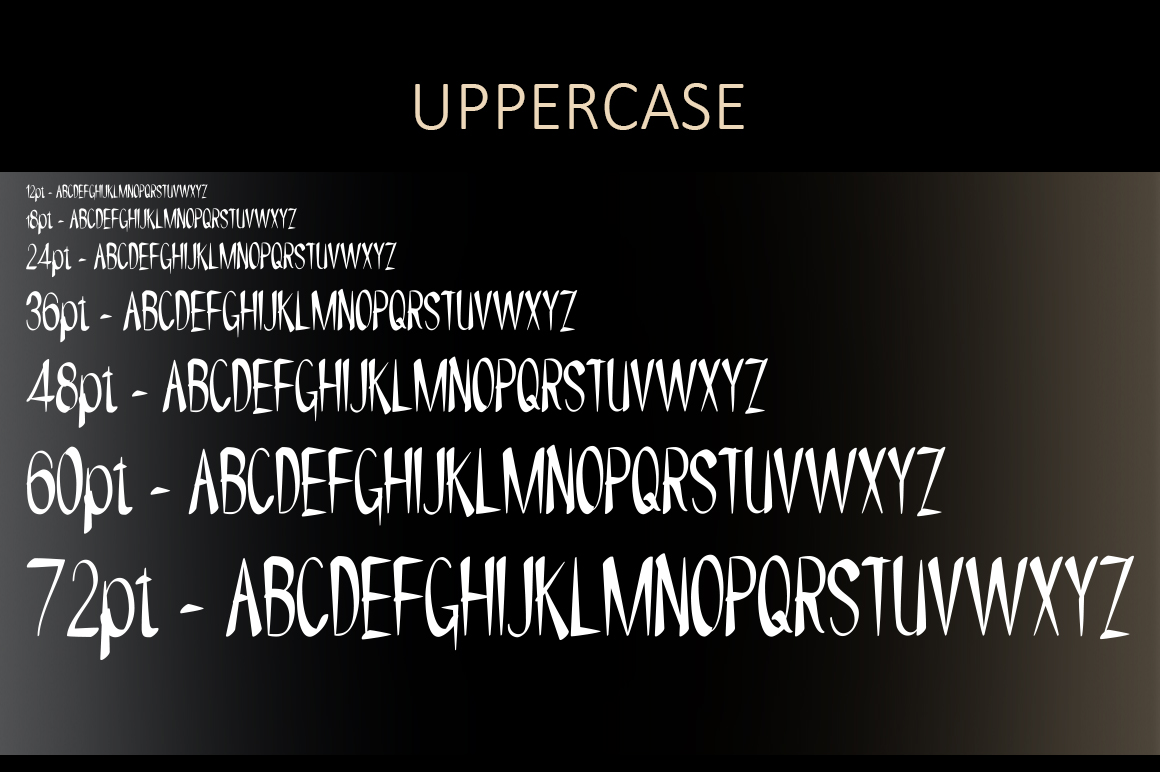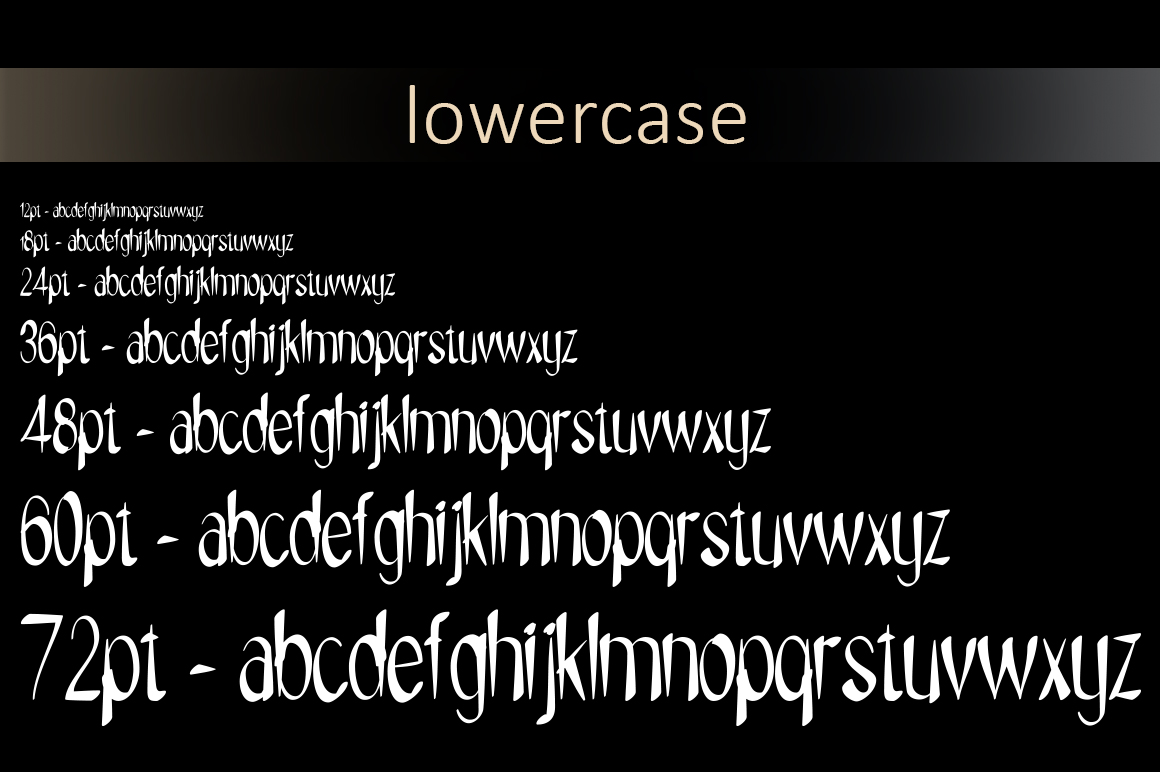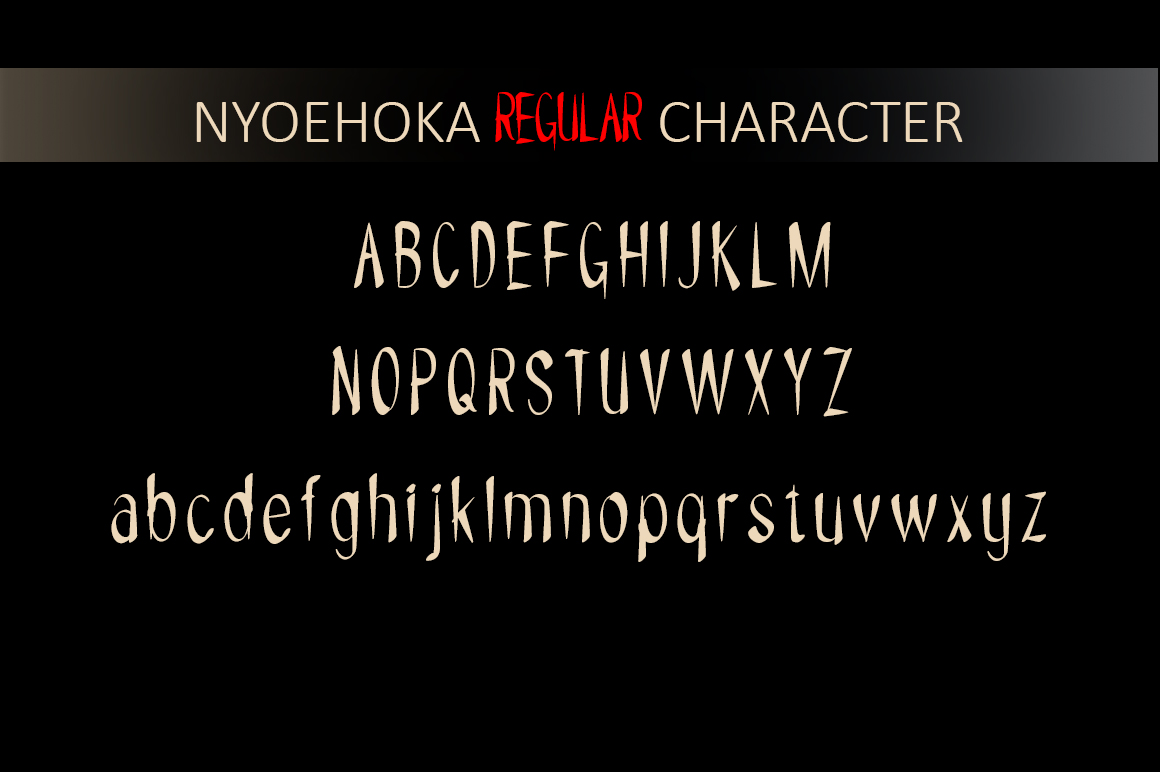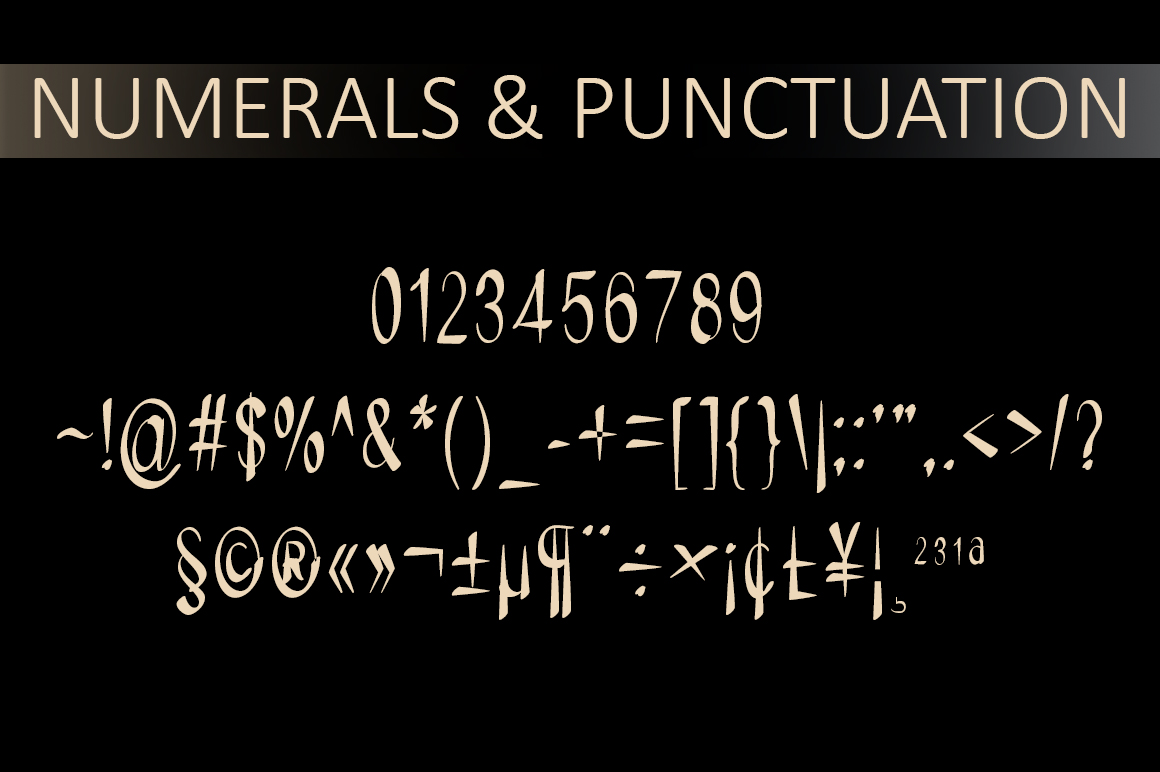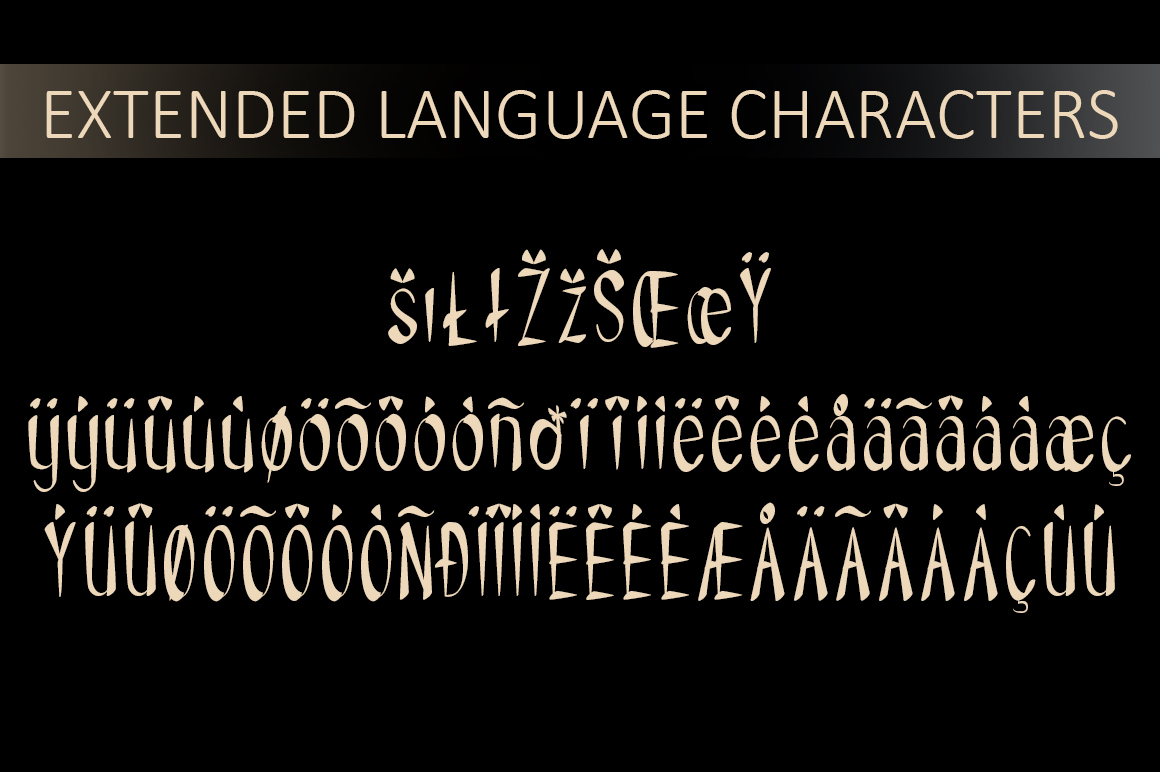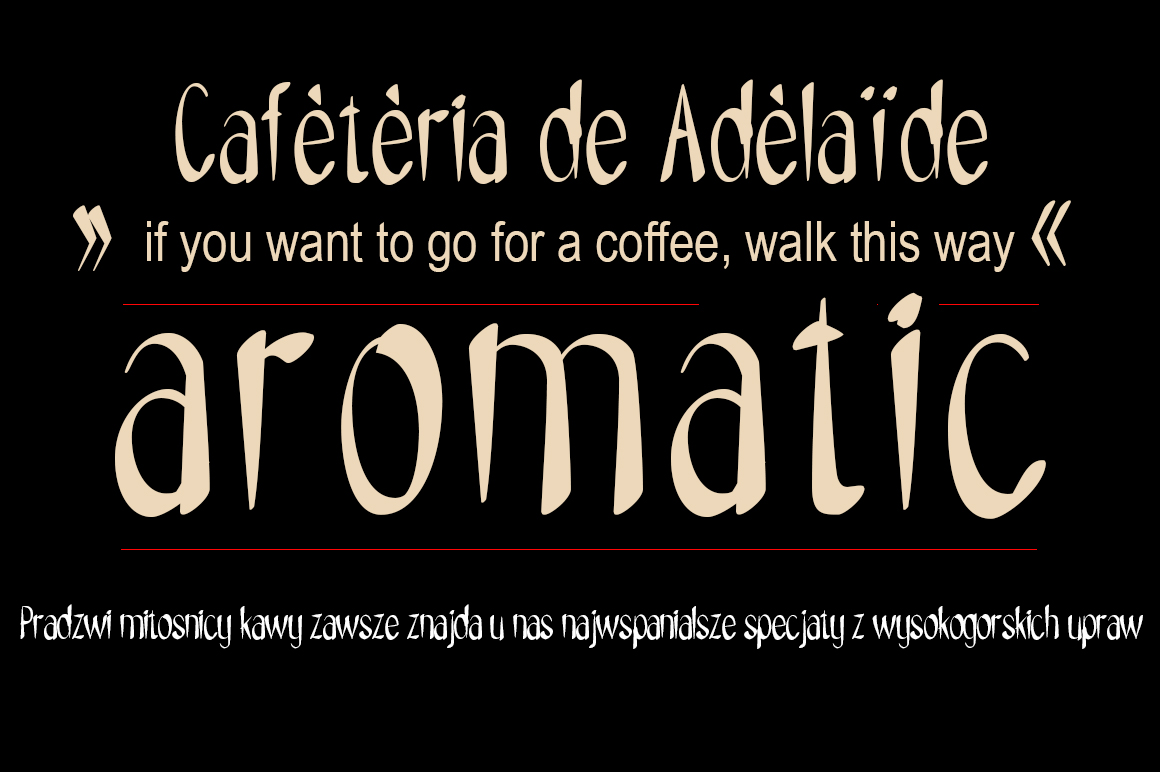
Introduction to Nyoehoka Font
Have you ever found yourself staring at a blank canvas, eager to bring a creative project to life, but struggling to find the perfect font to set the tone? It’s a moment we’ve all been in – the blank page staring back, the cursor blinking, and the pressure to deliver. But what if you could break free from the monotony of generic fonts and infuse your project with a vibrant, casual feel that screams authenticity?
Enter the Nyoehoka Font, a game-changing design resource that’s been making waves in the creative community. This fast stroke sans serif font is not just a pretty face – it’s a high-quality tool that can elevate your designs and give them a unique, organic feel that’s hard to resist. Whether you’re working on a freelance project or collaborating with a team, the Nyoehoka Font is the perfect companion to help you achieve your creative vision.
Key Features of Nyoehoka Font
- Unique and Creative Typography: Nyoehoka Font is designed to add a touch of elegance and sophistication to any creative project, making it a valuable design resource for artists and designers.
- High-Quality Design: This font features intricate details and smooth lines, ensuring a high-quality design that will elevate any project.
- Transparent Background: Nyoehoka Font has a transparent background, allowing designers to easily overlay it on any image or background, making it perfect for creative projects.
- Perfect for Designers and Artists: Nyoehoka Font is a versatile design resource that is perfect for designers and artists working on creative projects, from graphic design to digital art.
Honest Review: Nyoehoka Font
As a designer, I’m always on the lookout for high-quality design resources to elevate my creative projects. The Nyoehoka Font is one such resource that caught my attention. Upon closer inspection, I found it to be a versatile and elegant font that can add a touch of sophistication to any design.
Here are some aspects of the Nyoehoka Font that I think work well: ✨
- Unique and intricate design details that make it stand out from more generic fonts.
- Transparency options allow for seamless integration with transparent backgrounds.
- The font may not be suitable for projects that require a more straightforward, sans-serif font.
- Some users may find the font’s intricacies distracting, especially at smaller font sizes.
Overall, I’m impressed with the Nyoehoka Font’s potential to elevate my designs. While it may not be perfect for every project, its unique design and high-quality aesthetic make it a valuable addition to any designer’s toolkit.
Common Use Cases for Nyoehoka Font
The Nyoehoka Font is versatile and can be used in a variety of design projects, including:
- Presentation slides and reports
- Custom logos and branding materials
- Flyers and brochures
Does the Nyoehoka Font have a transparent background?
Yes, the Nyoehoka Font features a transparent background, making it easy to use with images and other design elements. This is especially useful for creative projects that require a high level of customization.
Is the Nyoehoka Font suitable for high-resolution designs?
Yes, the Nyoehoka Font is designed to be highly scalable, making it suitable for use in high-resolution designs. It supports advanced typography features, including ligatures and contextual alternates, to ensure that your designs look their best.